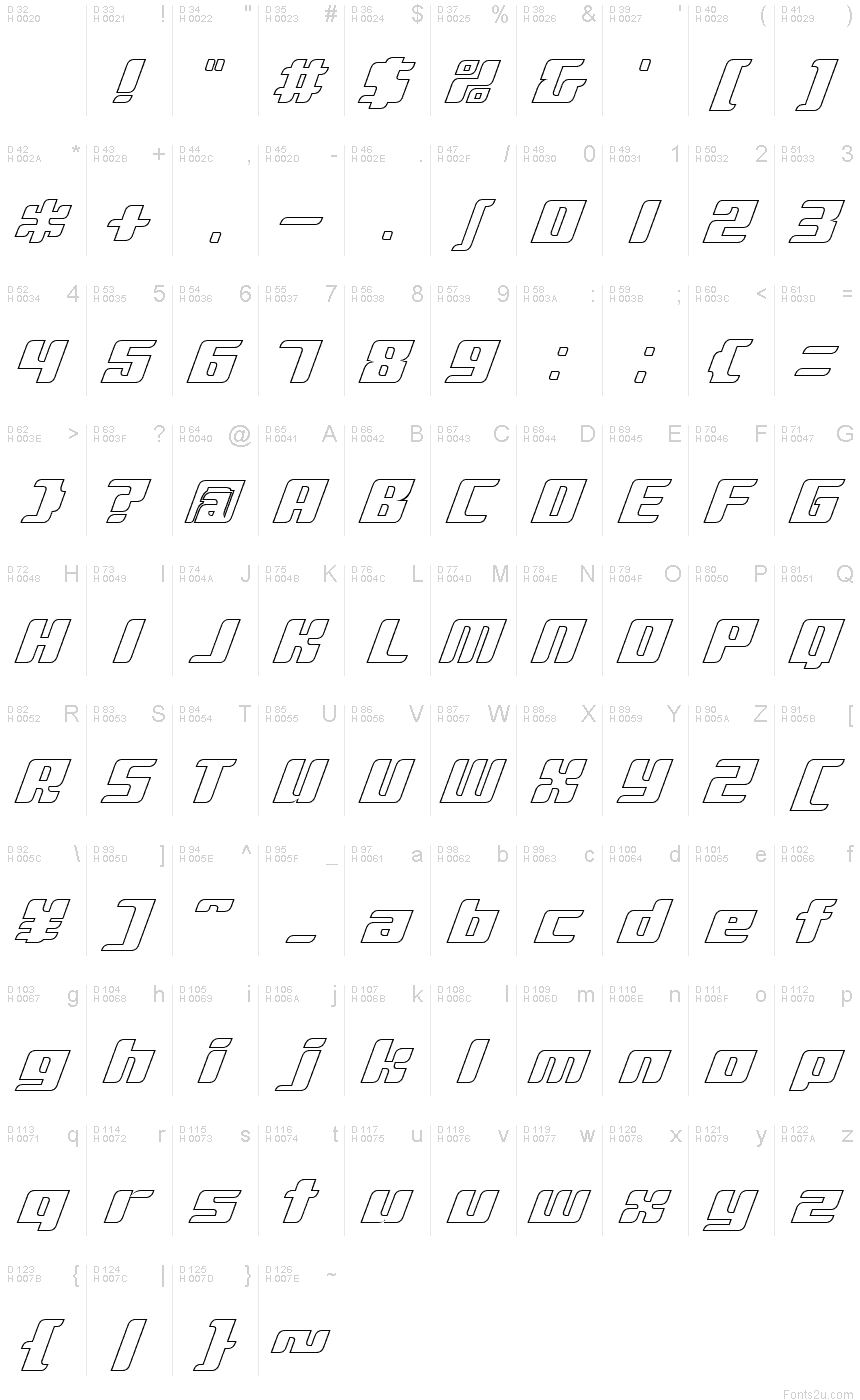
D3 Surfism IO by Yoshiyasu Ito of DigitalDreamDesign is a free futuristic outlined display font with broad forward-slanting letters, changing stroke widths, and a streamlined industrial shape. Long curves and cutaway corners keep the forms in motion.
Sports branding is its strongest fit, since the aerodynamic outline recalls custom racing graphics and carries easily into surf merchandise, esports graphics, and arcade game interfaces. For editorial design, the same angled construction can turn magazine cover lines and feature openers into part of a technology, motorsport, or gaming theme through lettering that resembles a badge or vehicle decal rather than serving as neutral typography.